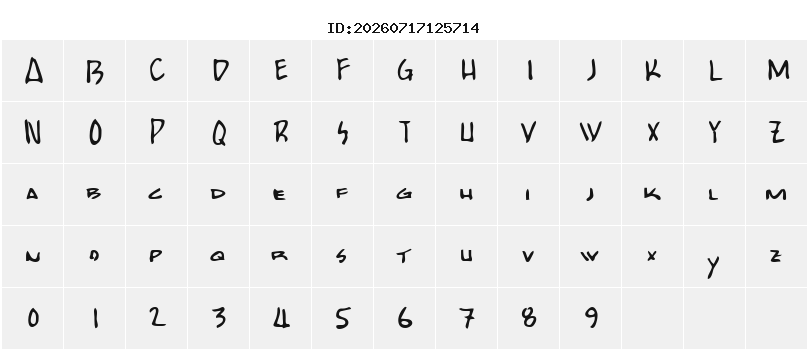
• Font Name: Bobcat
• Full Font Name: Bobcat
About Bobcat.ttf
Bobcat.ttf is a modern, elegant sans-serif font designed for ultimate readability and visual harmony. Perfect for branding, headlines, web design, and print materials.